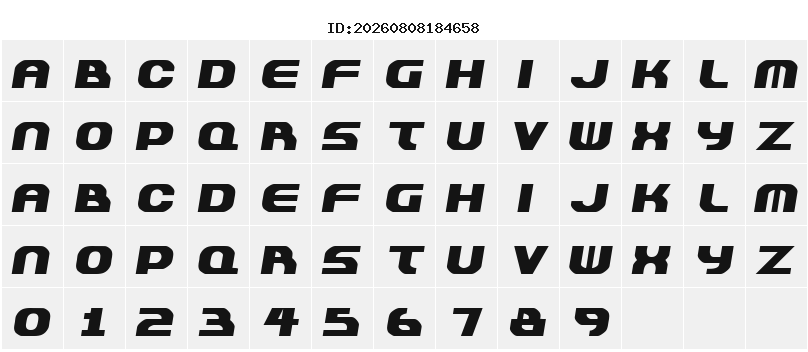
• Font Name: Plastique
Plastique.ttf is a modern, elegant sans-serif font designed for ultimate readability and visual harmony. Perfect for branding, headlines, web design, and print materials.